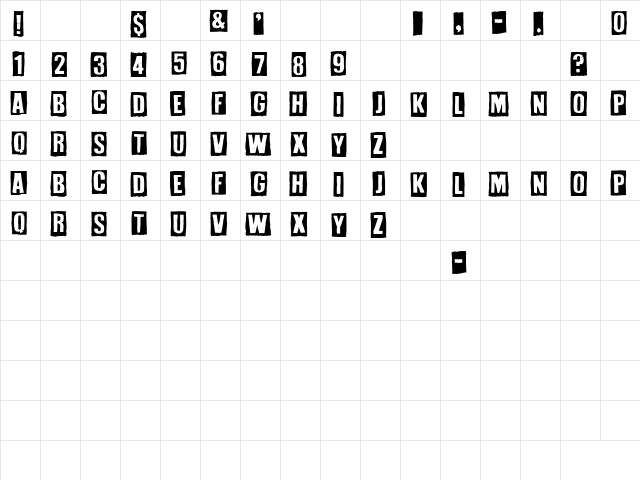
White On Black Regular
| Designer | IMAGEX |
Design Context for White On Black Typeface
White On Black is a composed and adaptable typeface that performs quietly and consistently across a wide range of design contexts.